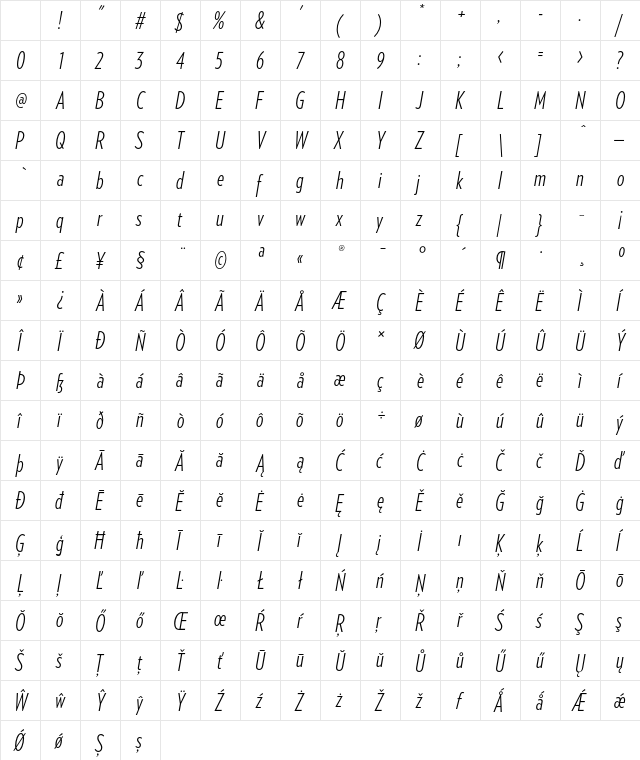
Complete Verlag Compressed Light Italic glyph index. Displaying only characters natively supported by Verlag Compressed Light Italic font.
Verlag Compressed is a composed and adaptable typeface that performs quietly and consistently across a wide range of design contexts. The slanted form adds forward momentum and visual energy. Its slender proportions lend an understated elegance to any composition.
Pro Tip: Use Verlag Compressed for emphasis, pull quotes, and subheadings where its slanted energy can add rhythm to the layout.